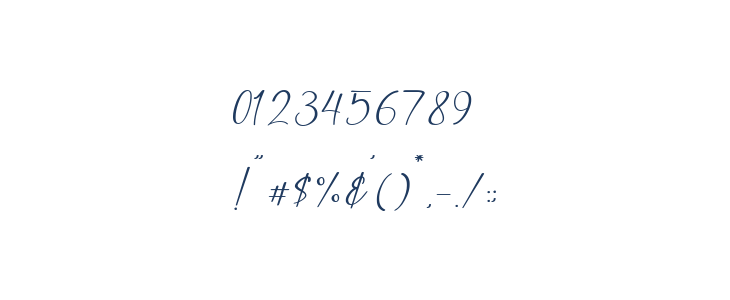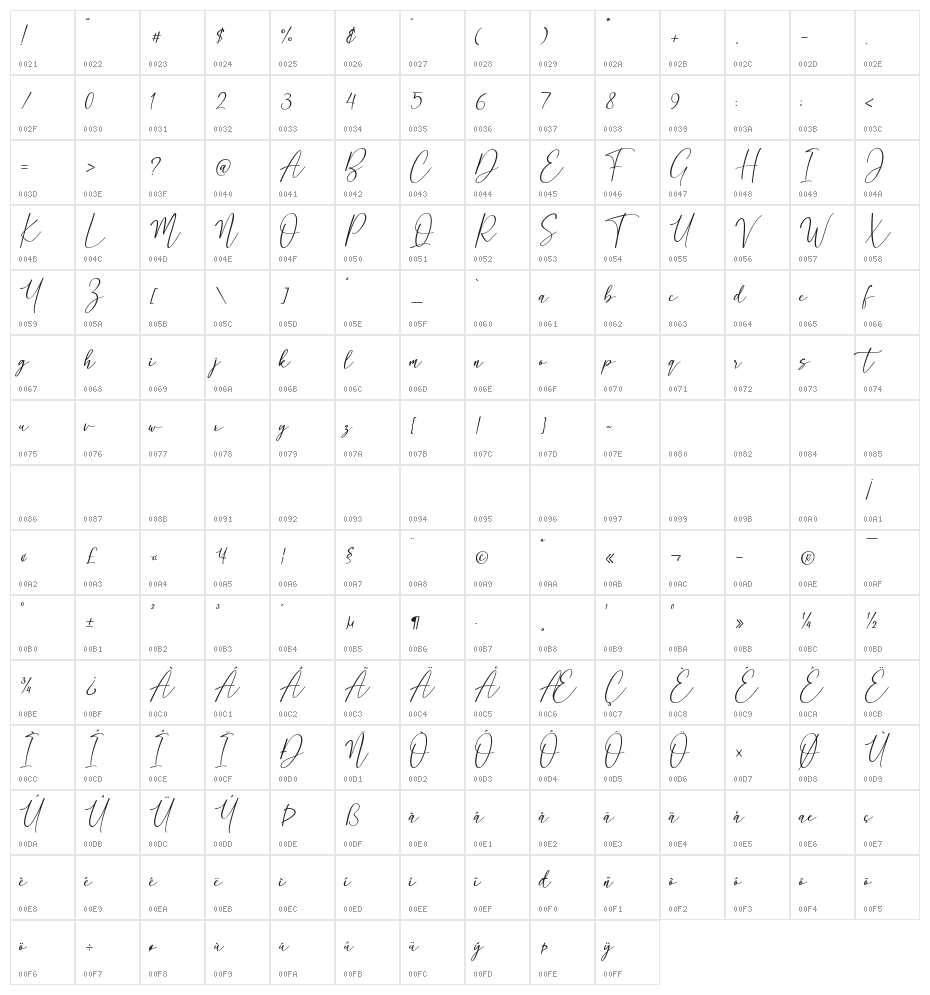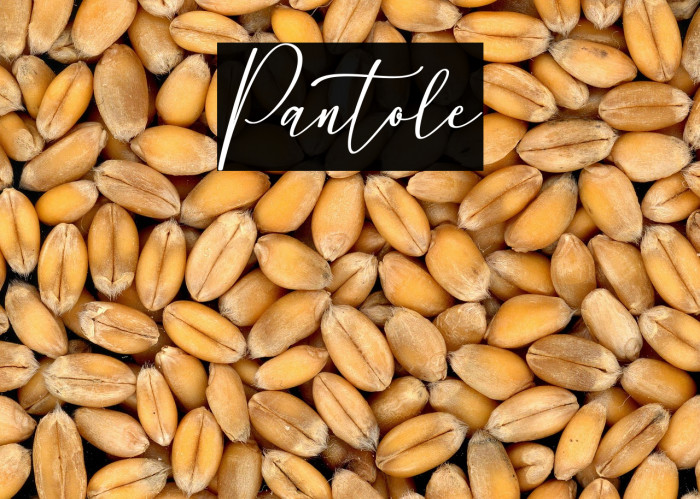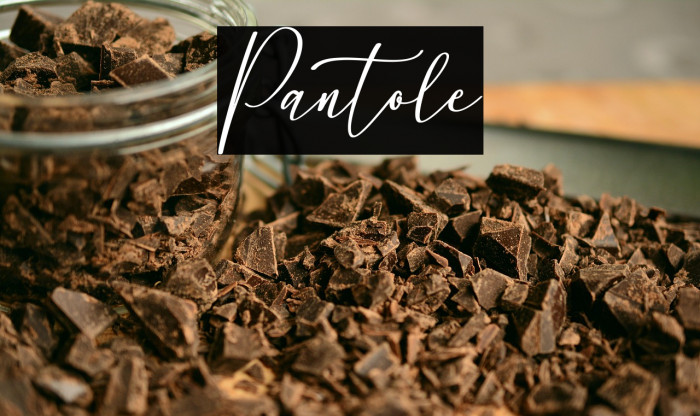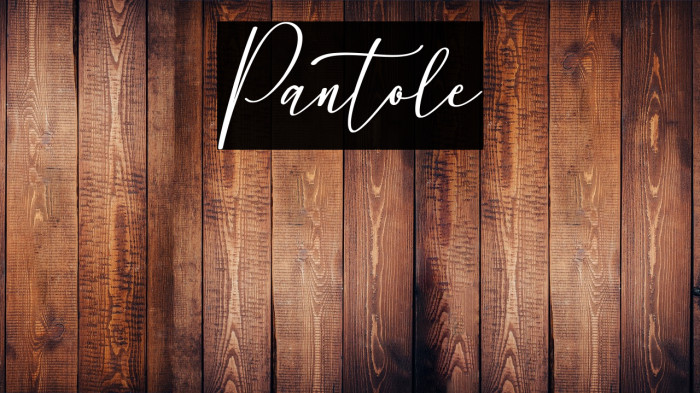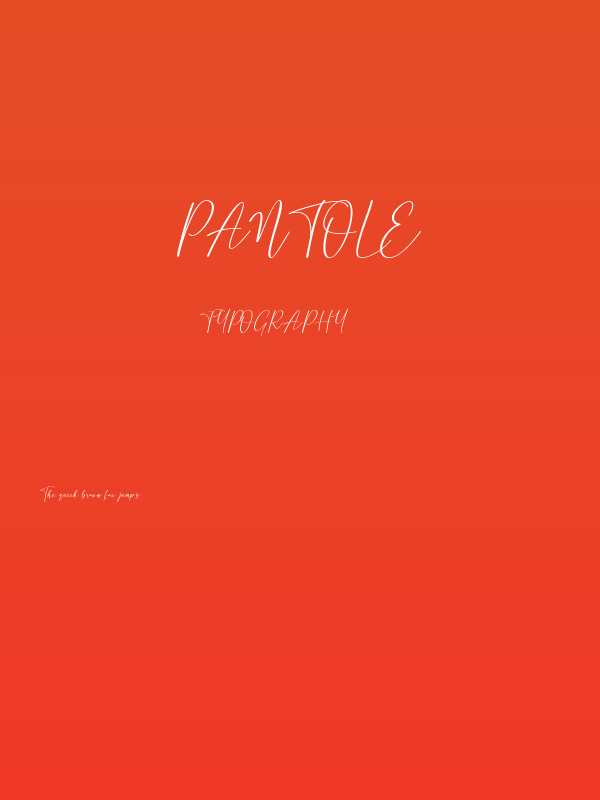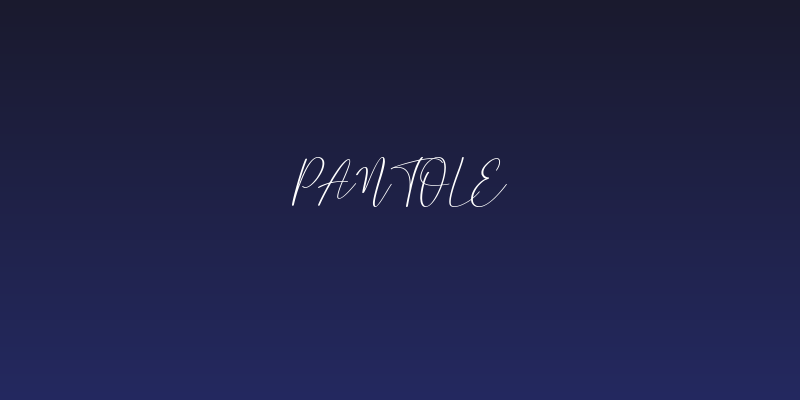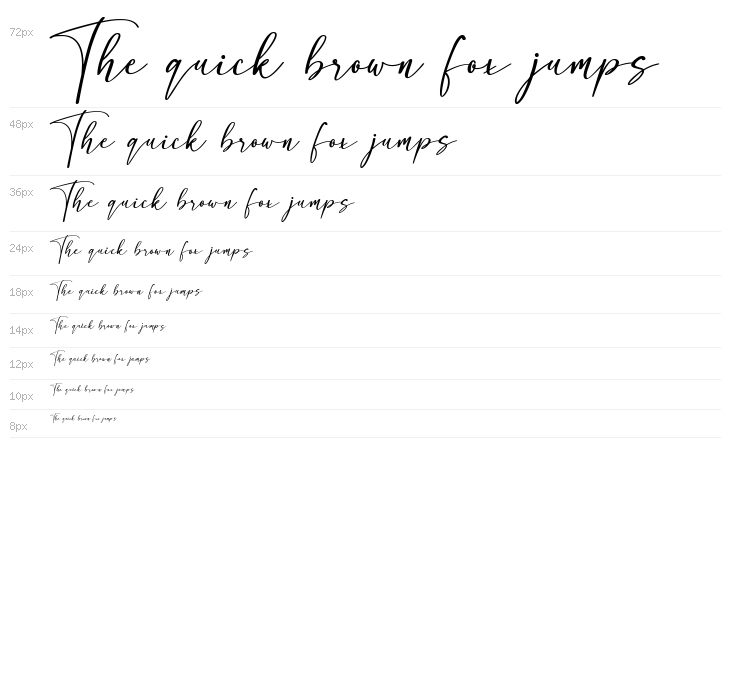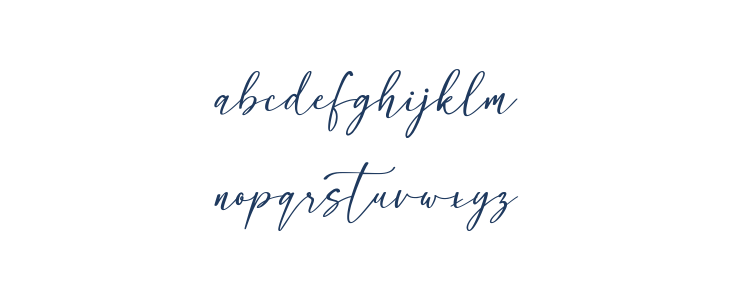
Pantole Font
Pantole Description
This elegant script font features a fluid and graceful design, characterized by its flowing, interconnected strokes that mimic the natural movement of handwriting. The uppercase letters are tall and slender, with a slight slant that adds a dynamic feel. The lowercase letters maintain a consistent style, with smooth curves and delicate loops that enhance its sophisticated appearance. The numerals are clear and legible, complementing the overall aesthetic. Special characters are thoughtfully designed to match the font's elegant style, making it suitable for a variety of decorative purposes.
| Overall Style | Elegant and Decorative |
| Use Case | Logos, Invitations, Decorative text |
| Proposed Projects | Ideal for wedding invitations, greeting cards, branding, and elegant packaging designs. |